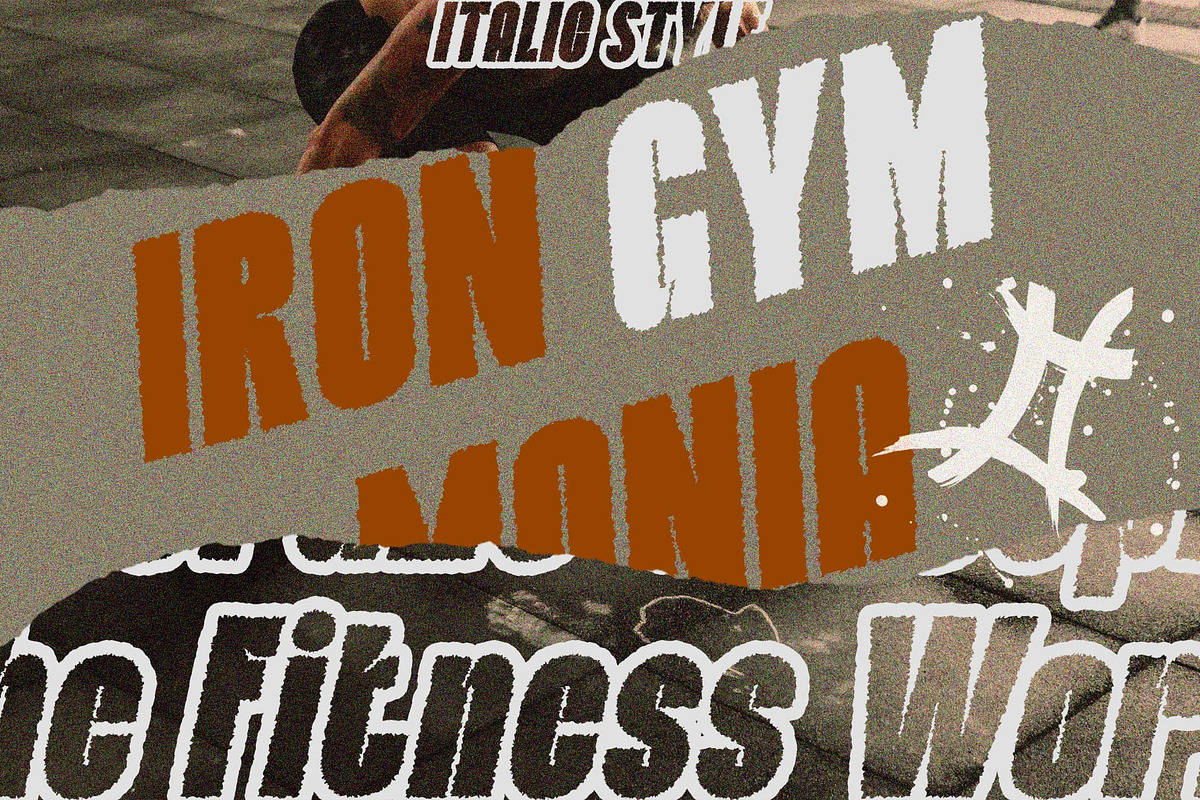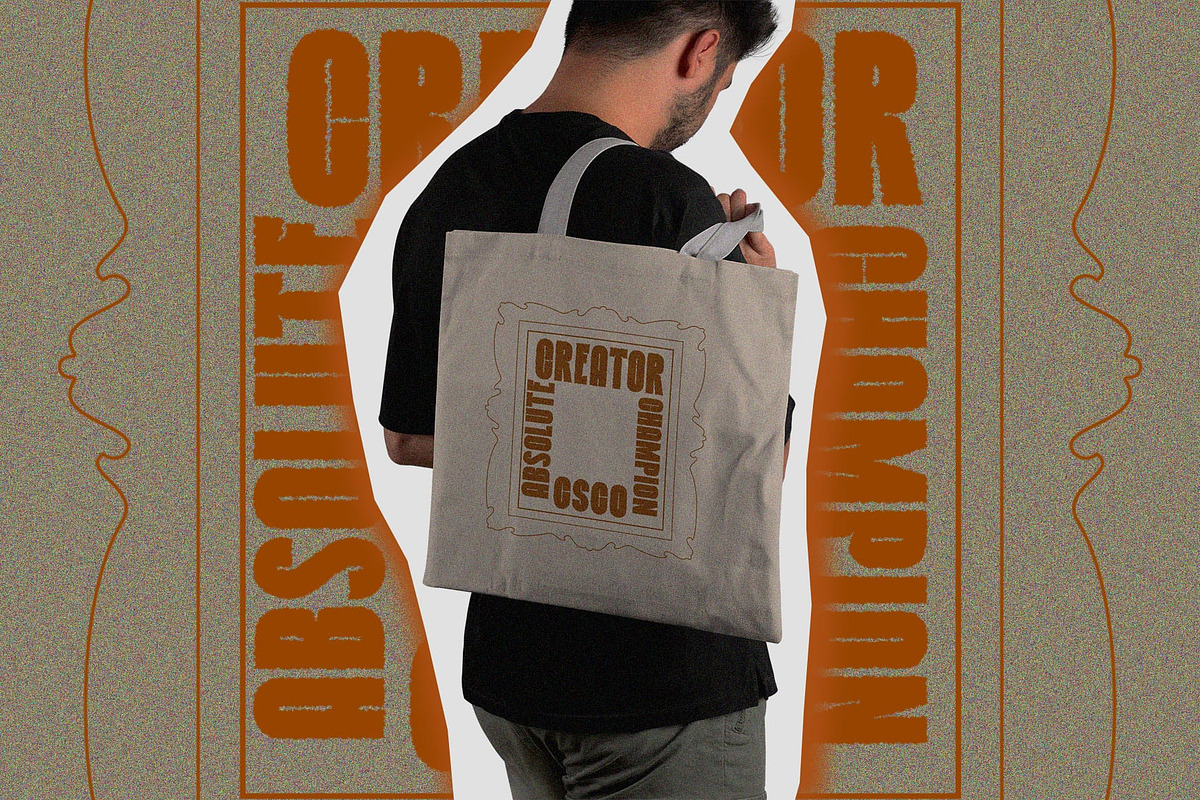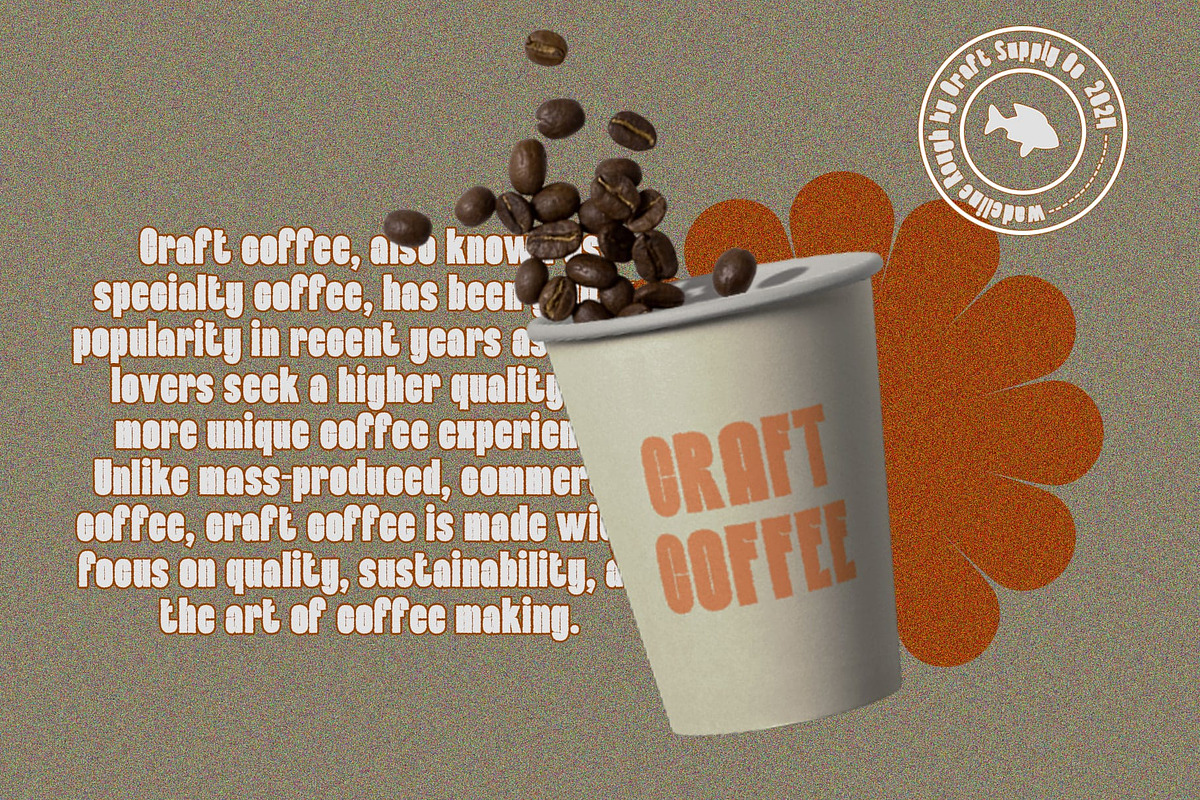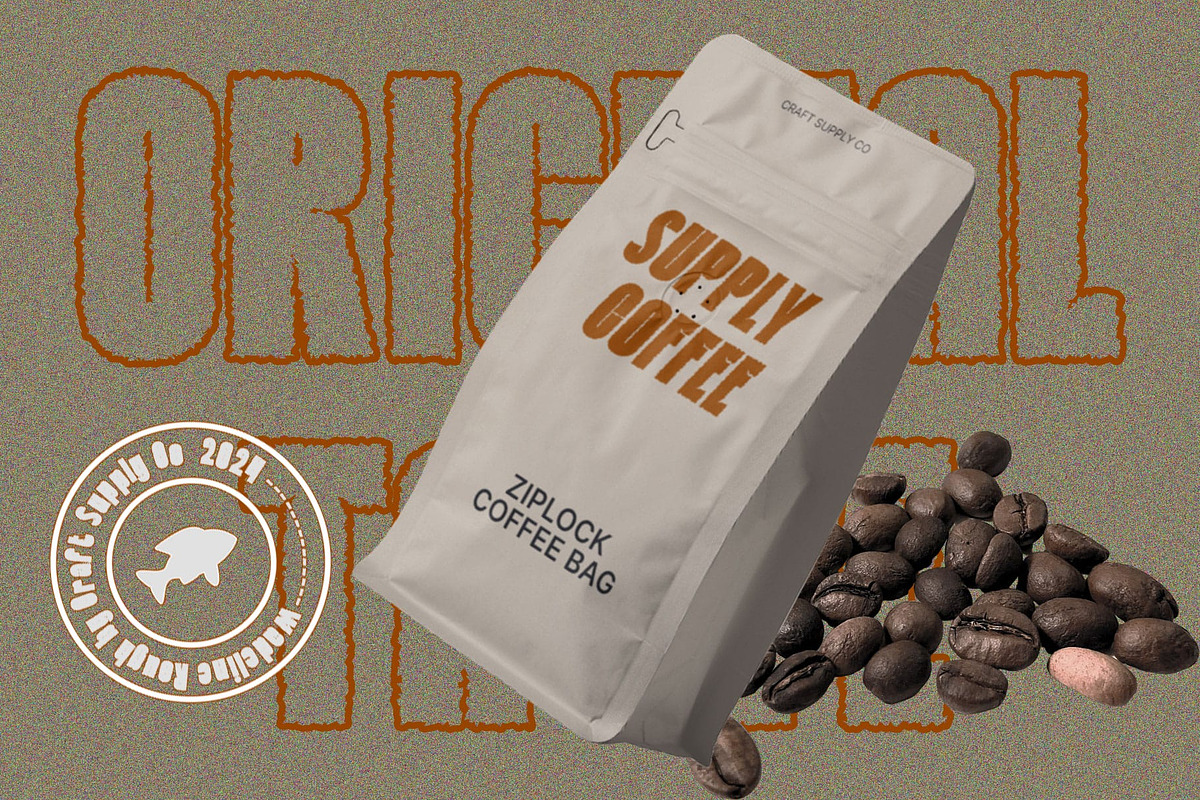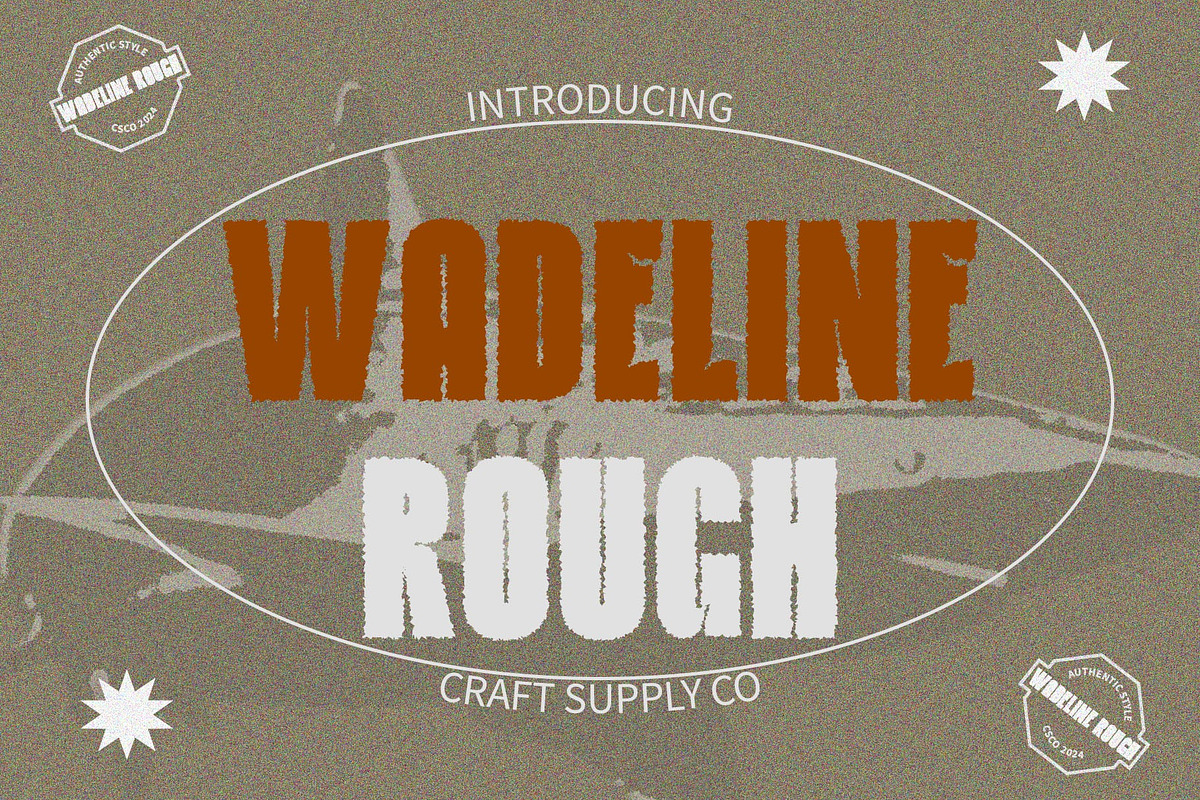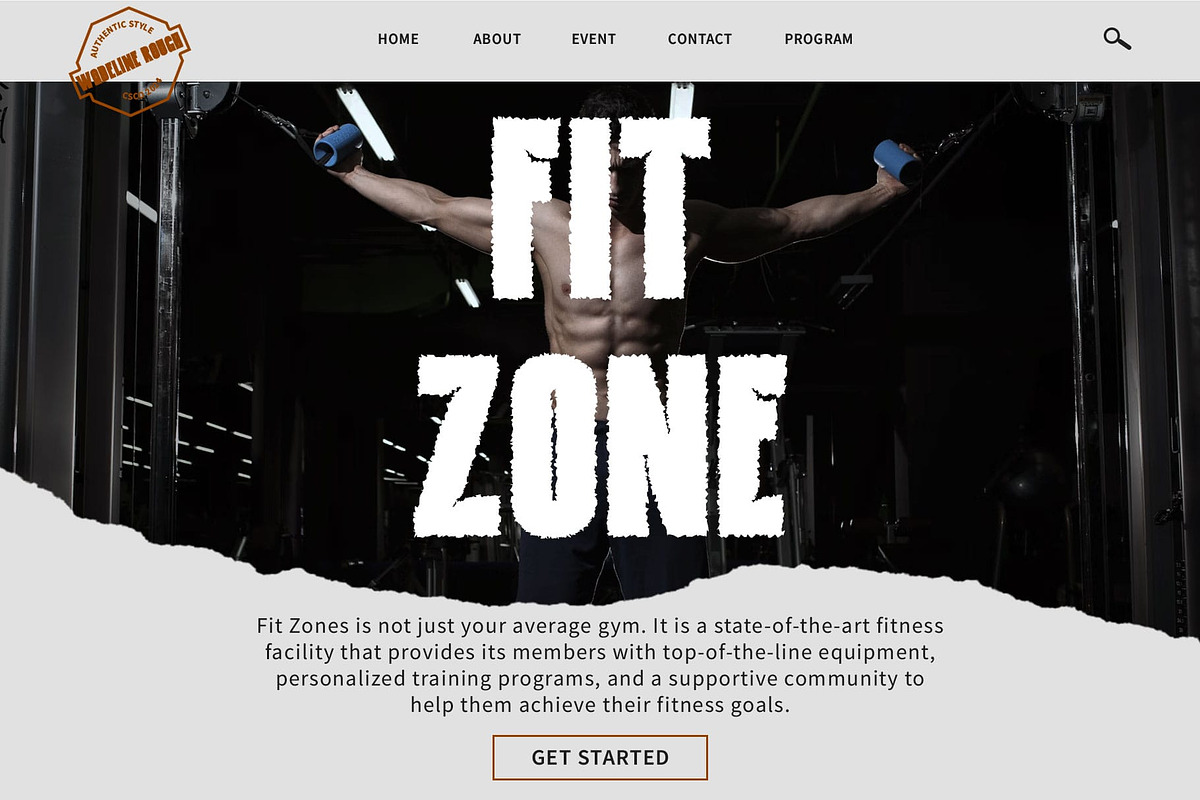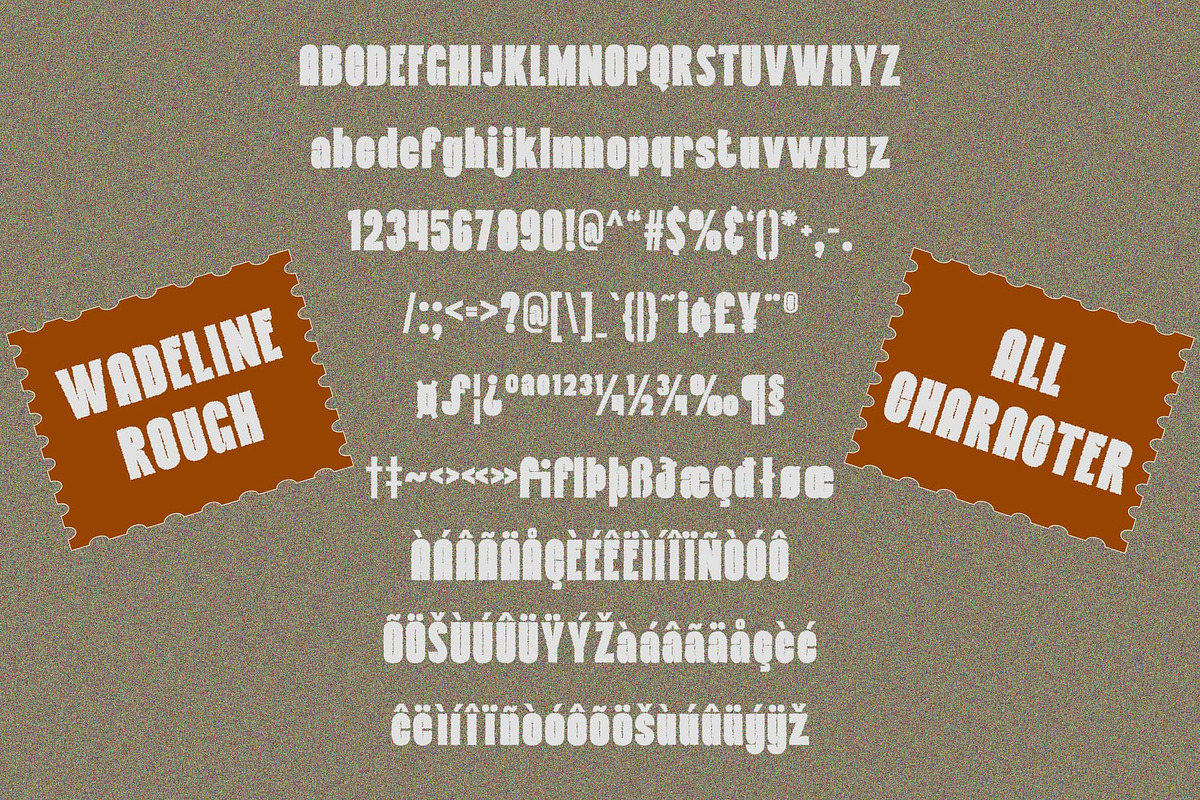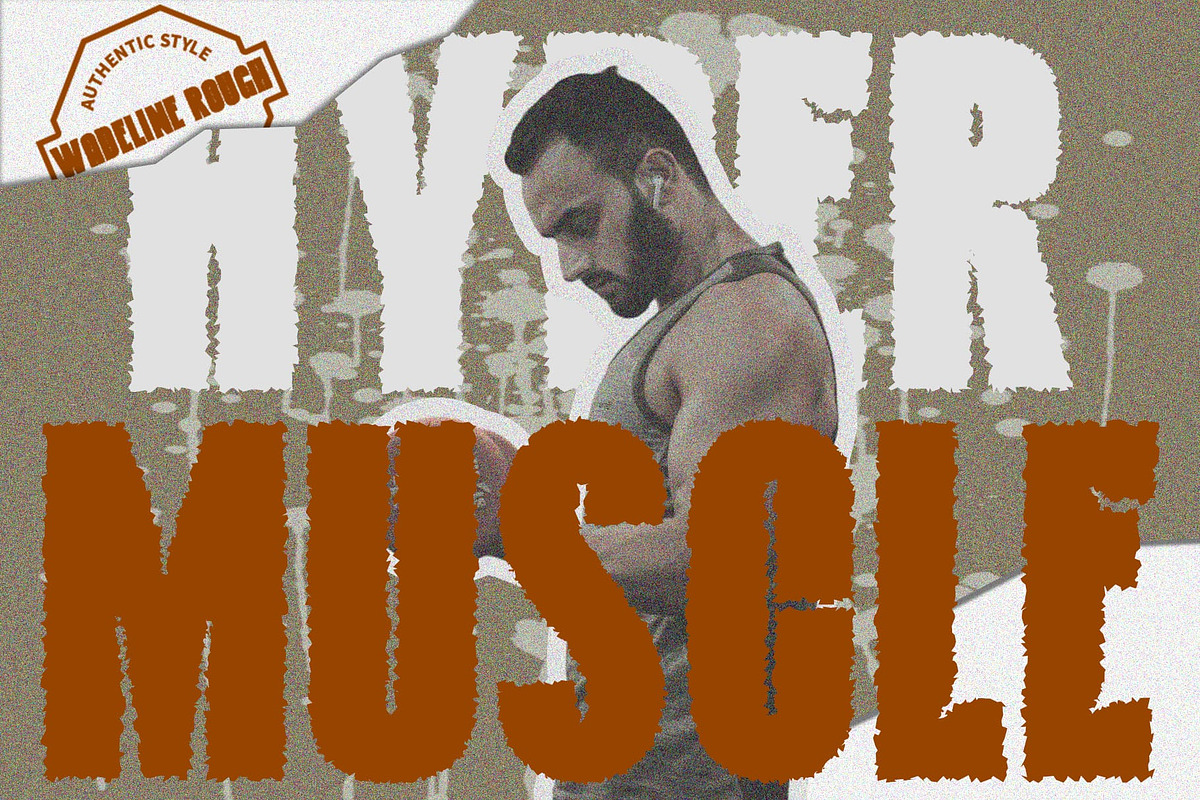
Wadeline Rough
Wadeline Rough: Bold and Impactful Display Font
Narrow Sans Serif Design Wadeline Rough boasts a narrow sans serif design, characterized by tight letter spacing and a bold weight. Its compact structure maximizes space efficiency and ensures a commanding presence.
Bold Weight for Emphasis With its bold weight, This font demands attention and creates a strong visual impact. Each character is imbued with a sense of authority and prominence, making it perfect for display purposes.
Rough Texture Effect The font features a rough texture effect, adding a rugged and distressed appearance to each letter. This roughness adds depth and character to the font, giving it a unique and eye-catching quality.
Ideal for Display Thanks to its narrow design, bold weight, and rough texture effect, This font is perfectly suited for display purposes. Whether used in headlines, banners, or posters, it ensures maximum visibility and legibility.
Command Attention with Distinctive Style This font is a standout display font characterized by its narrow sans serif design, bold weight, and rough texture effect. It exudes confidence and boldness, making it an ideal choice for designers looking to create impactful and attention-grabbing displays. With Wadeline Rough, your message will be loud and clear, leaving a lasting impression on your audience.